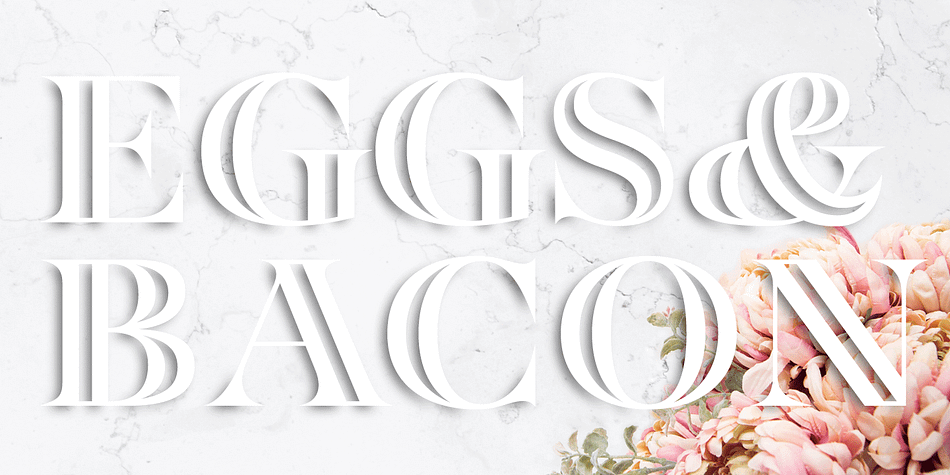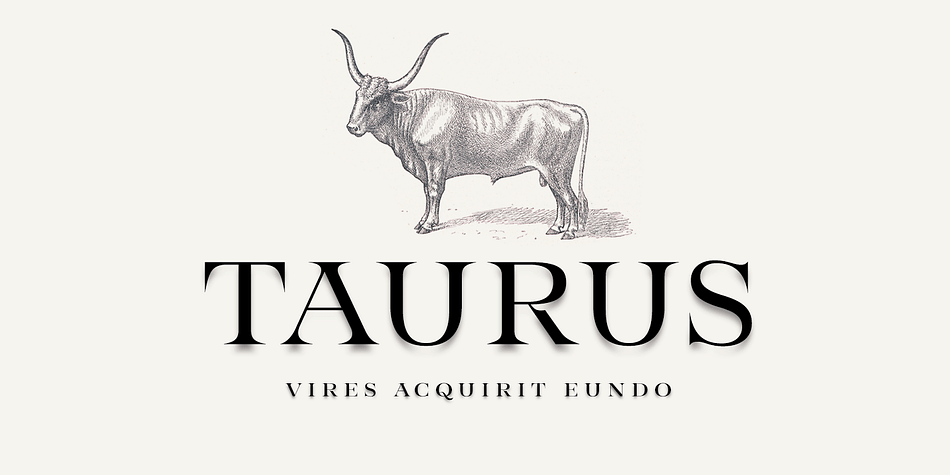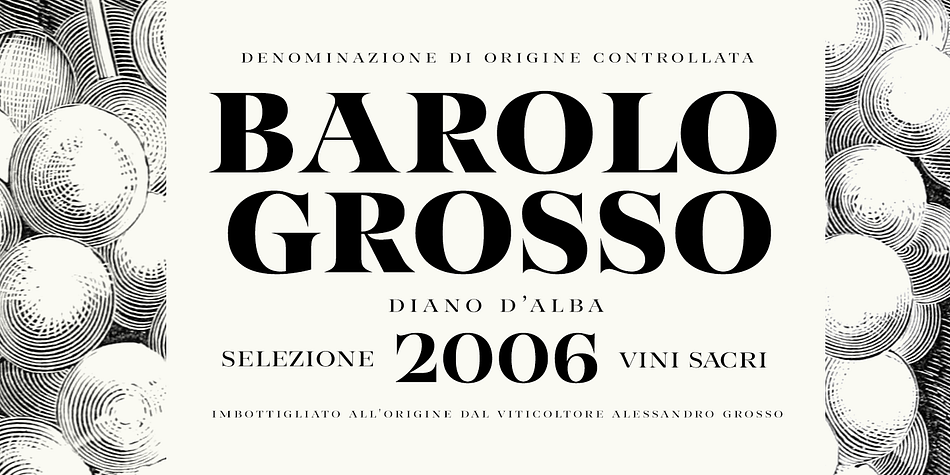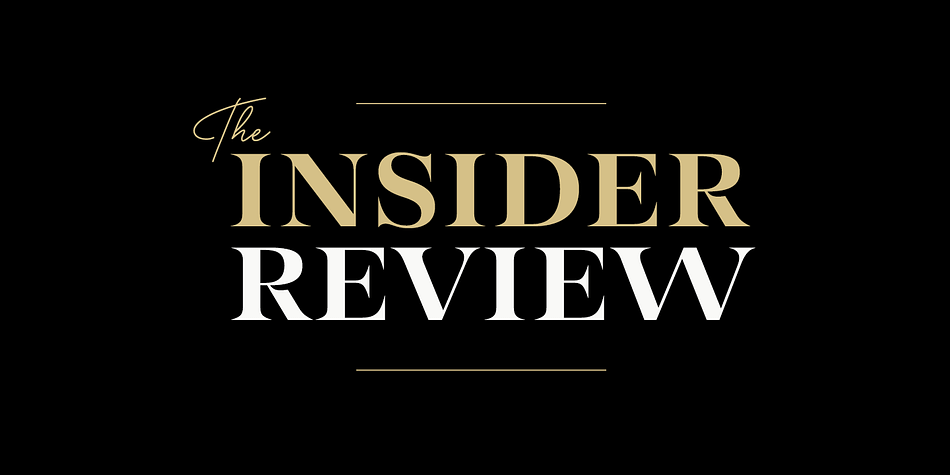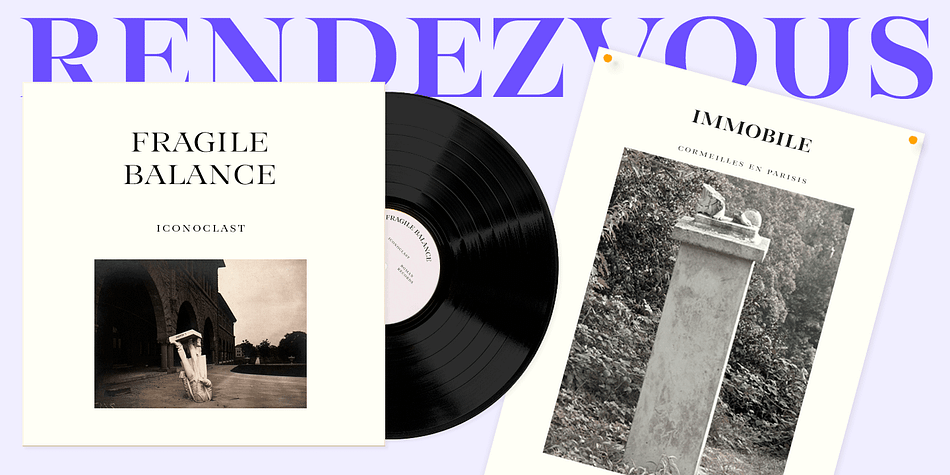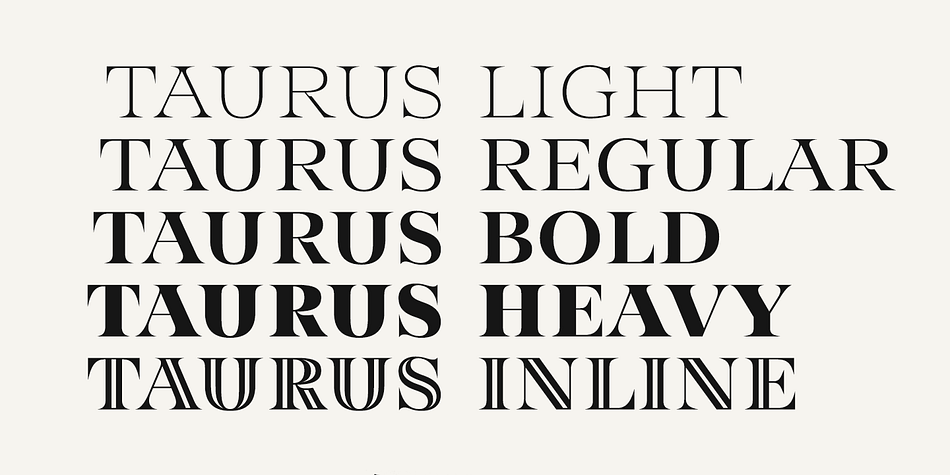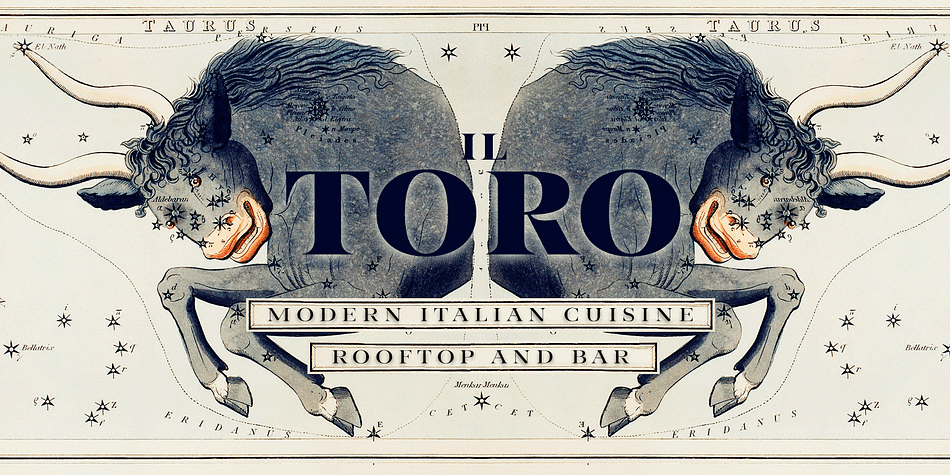
Designed by Erik Bertell, Emil Bertell and Teo Tuominen, Taurus is a display serif and serif font family. This typeface has five styles and was published by Fenotype.
Save time and effort – choose your type wisely. Use Taurus and you’ll achieve impact without having to resort to cheap tricks. We have done the work for you: just type out words using Taurus and you’ll have a logo for a Wall Street law firm – or for that precious vintage Barolo.
Refinement. Sophistication. Seriousness. Sex appeal. Taurus has it all.